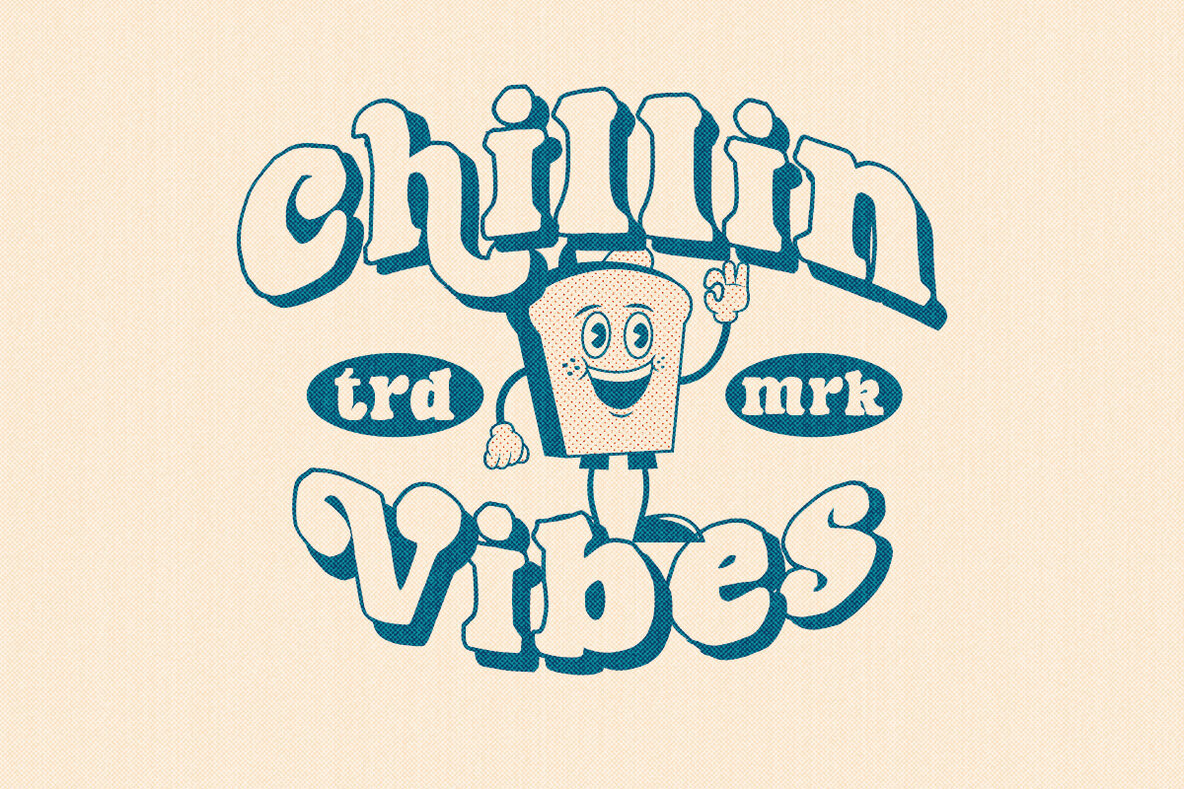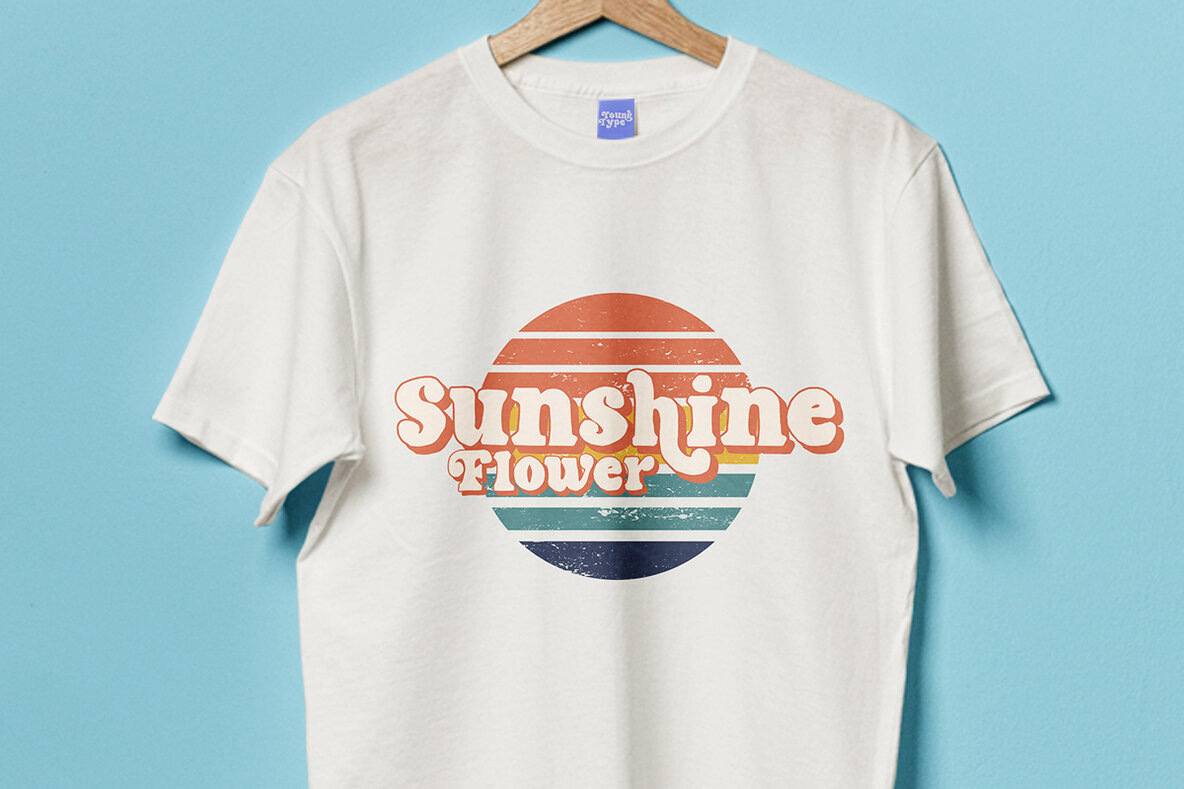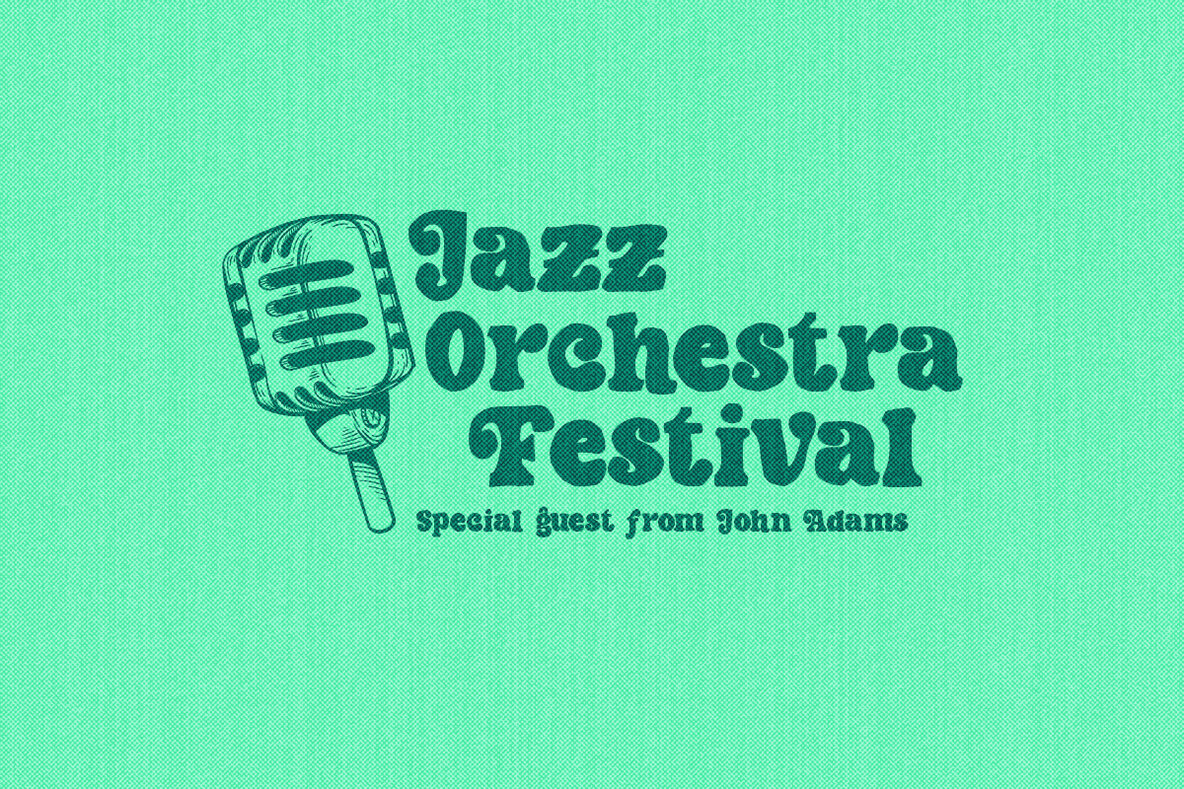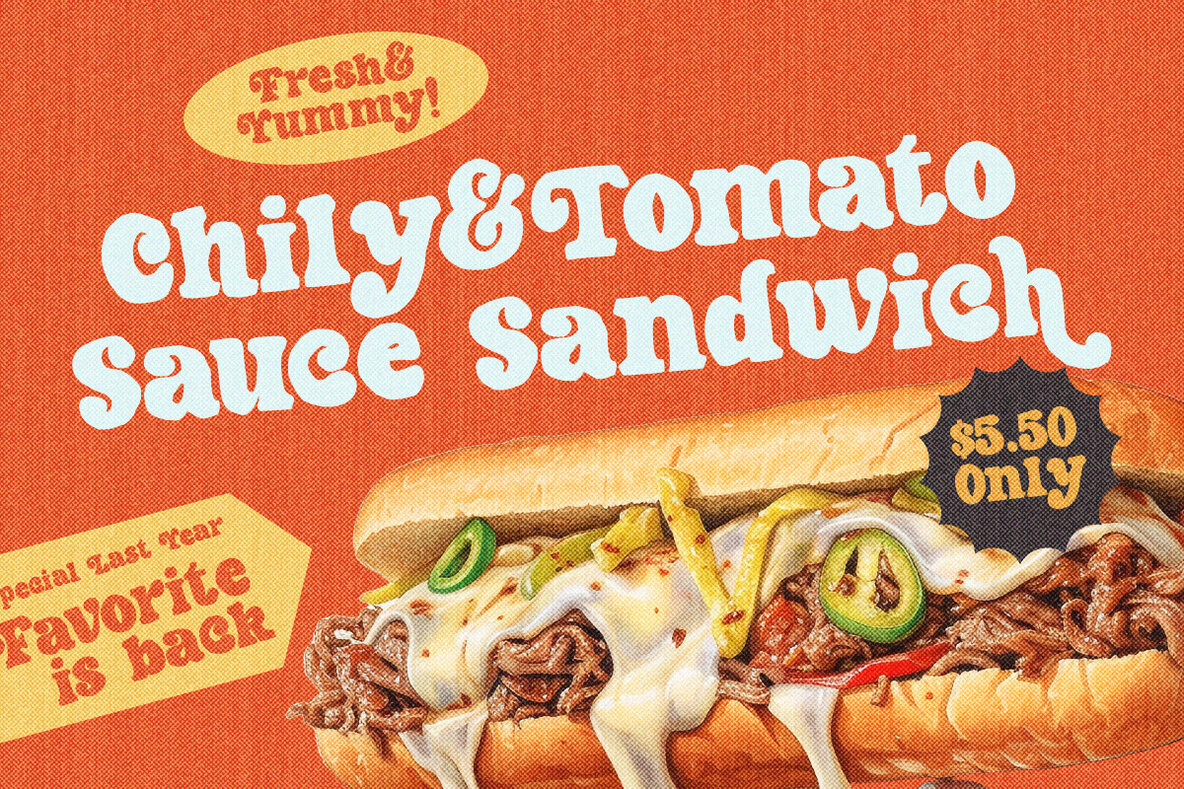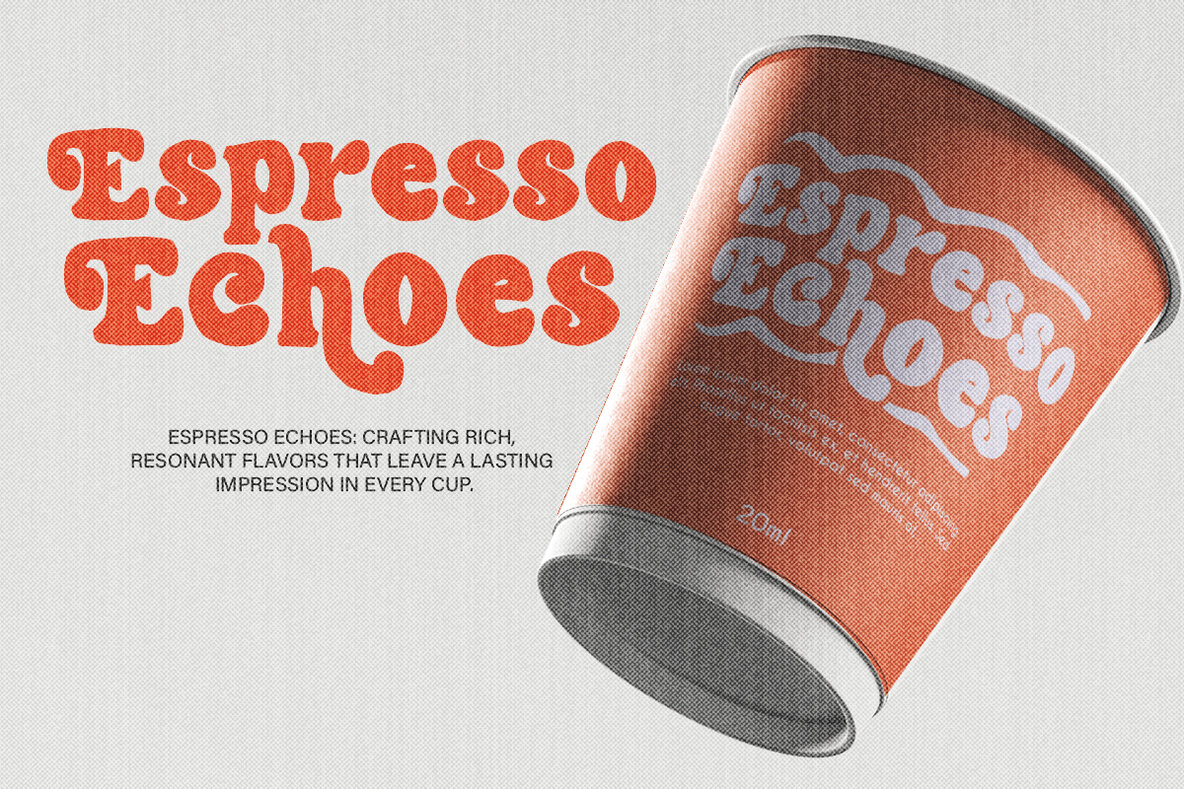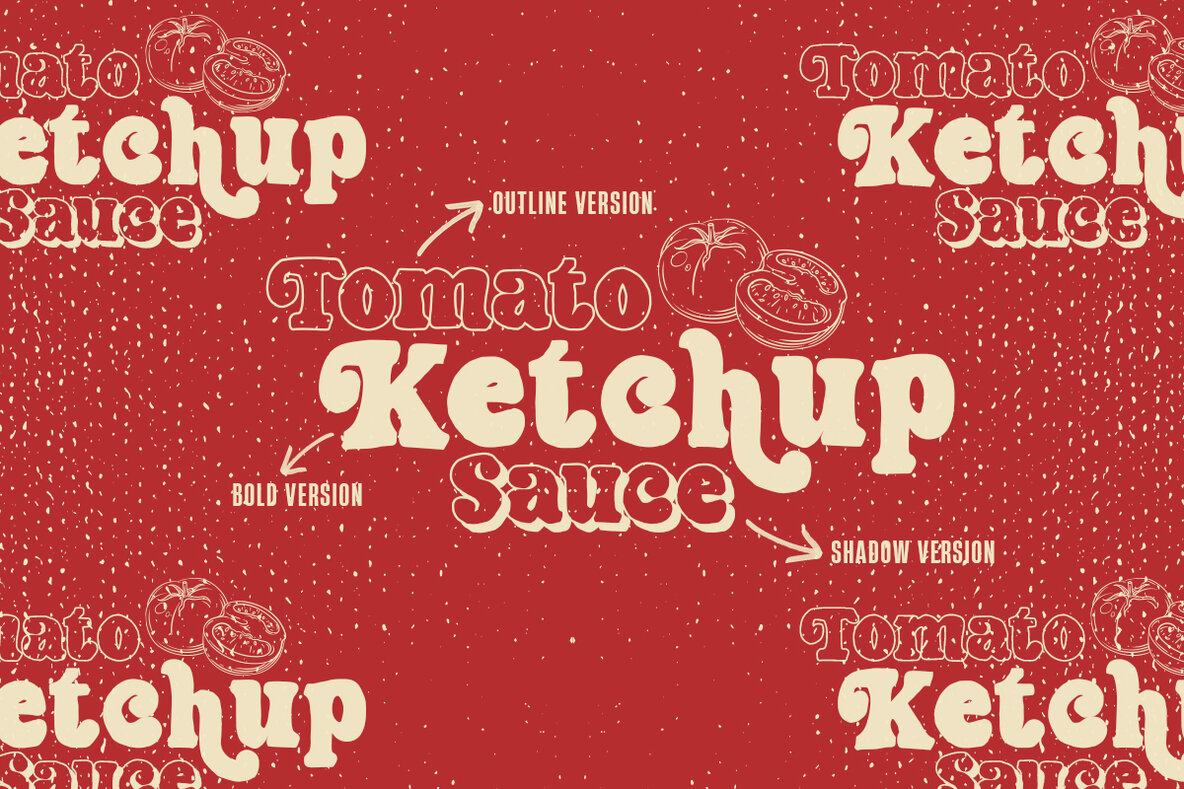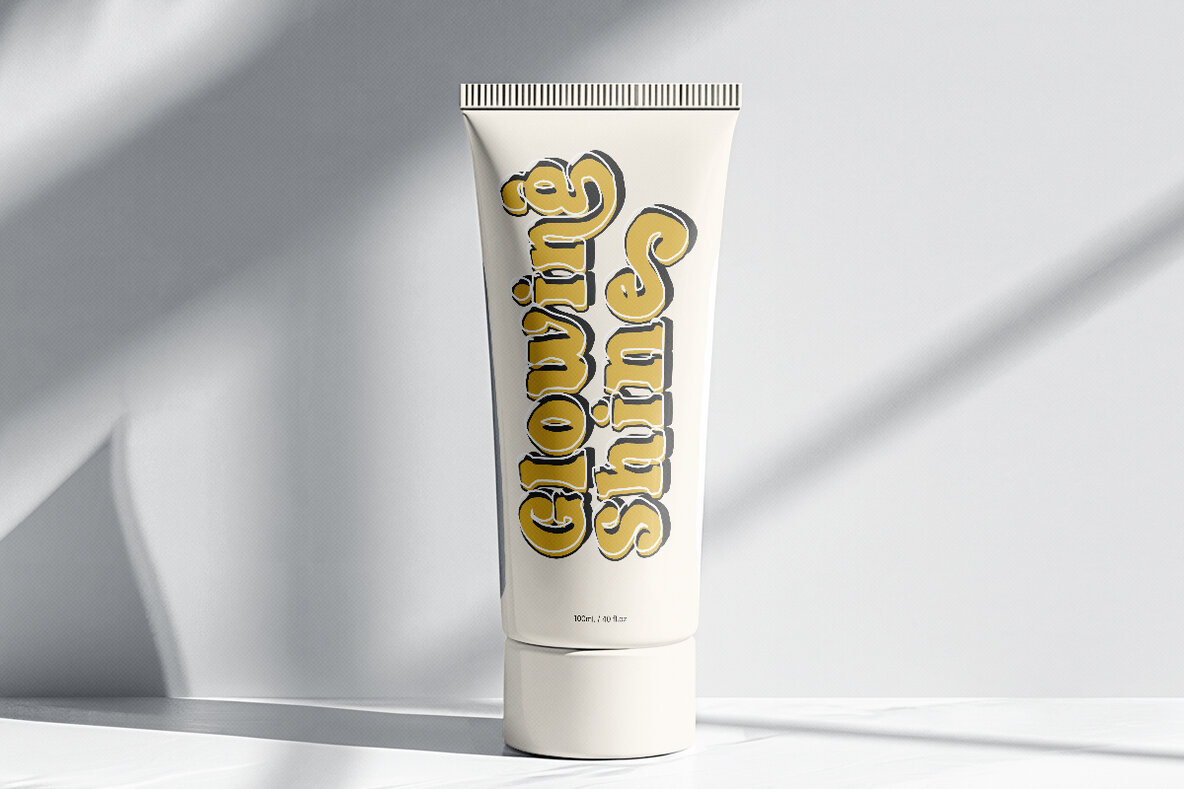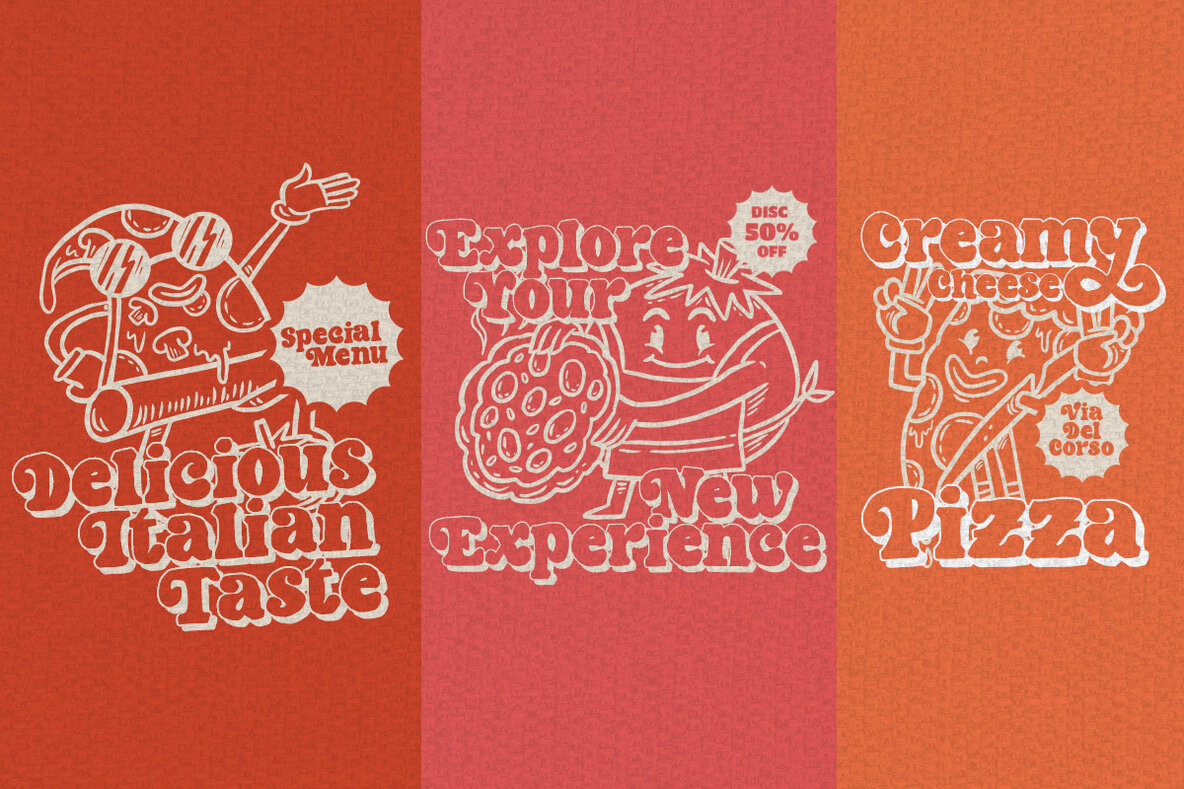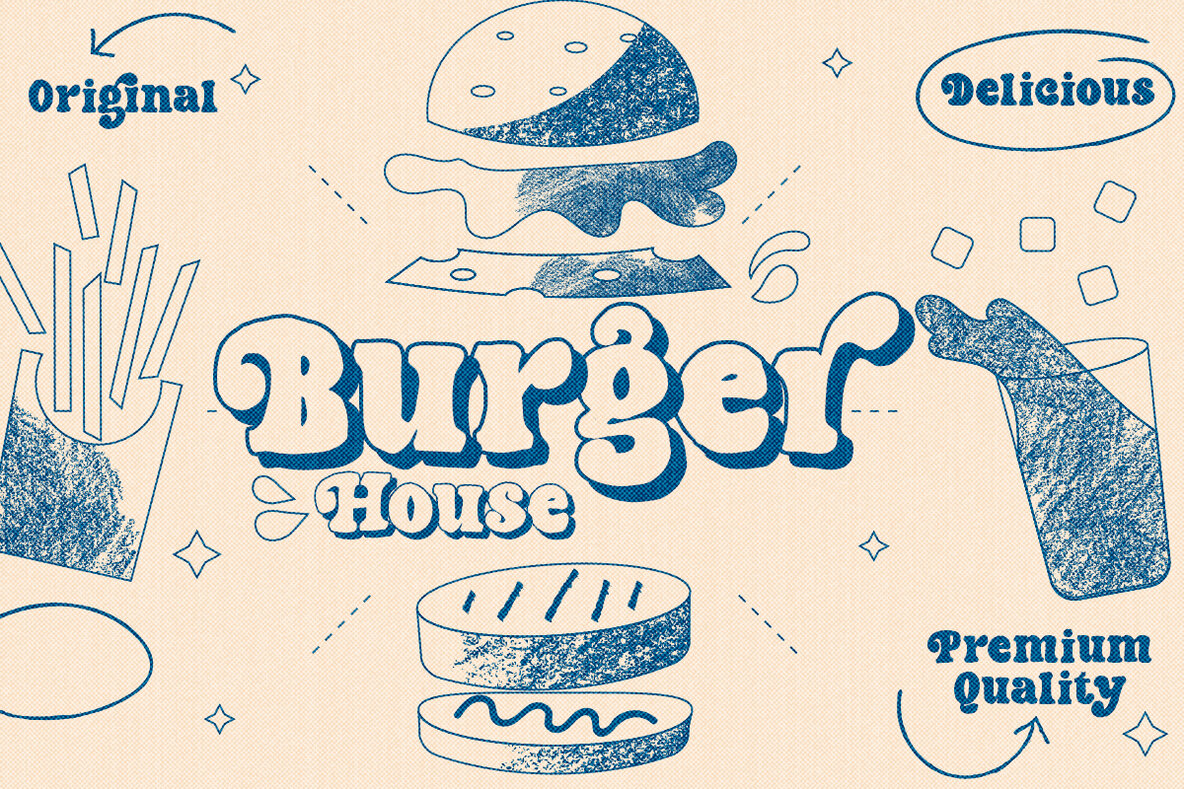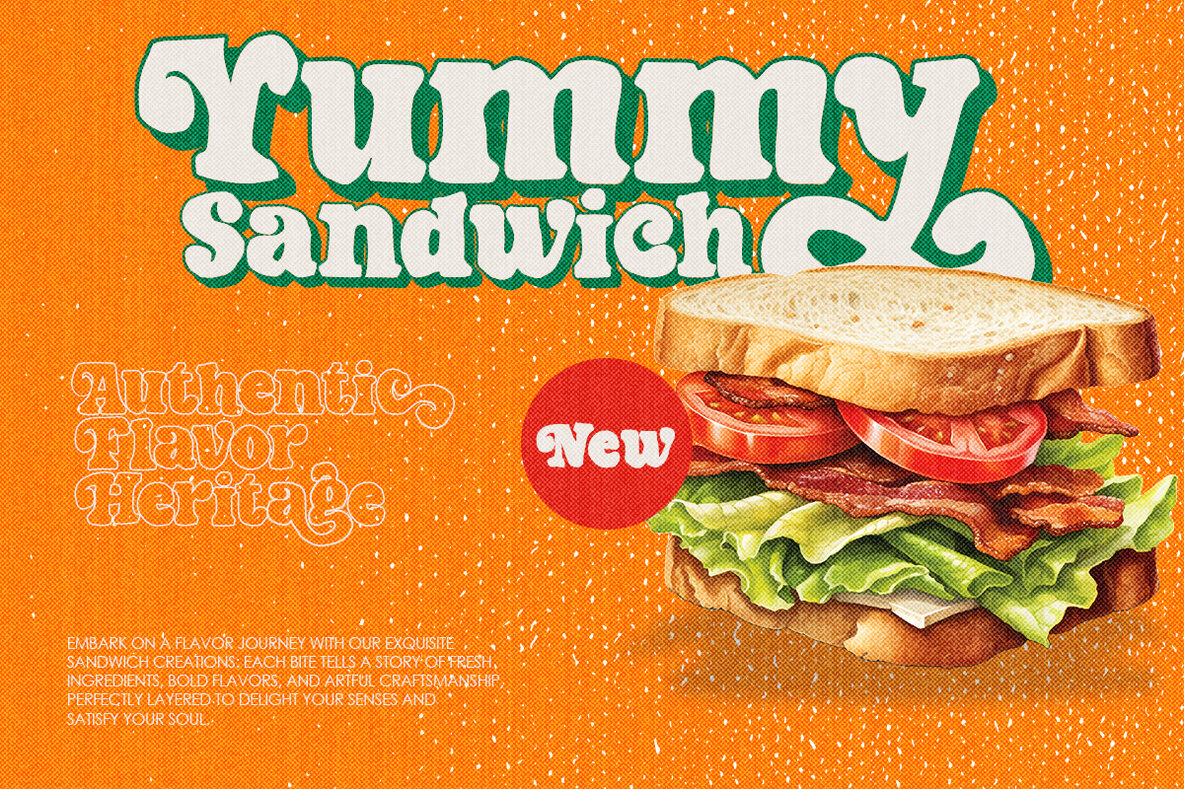
Pegia Display Font
Pegia Display is a hand brush font crafted to bring the authentic feel of brush and ink to your designs. It comes with five versatile styles—Regular, Italic, Outline, Bold, and Shadow. This typeface is perfectly suited for projects that demand a bold and artistic touch, such as watercolor designs, handwritten elements, or creative titles. Its aesthetic is ideal for a variety of uses, including blog titles, posters, wedding invitations, t-shirts, book covers, and business branding.
This font offers a comprehensive character set, featuring uppercase and lowercase letters, ligatures, alternates, punctuation, numbers, and multilingual support. With its diverse character options, Pegia Display provides designers the flexibility to create visually engaging and dynamic content. Whether you're working on merchandise, greeting cards, or any other creative endeavor, this font delivers a distinctive, artistic impact.